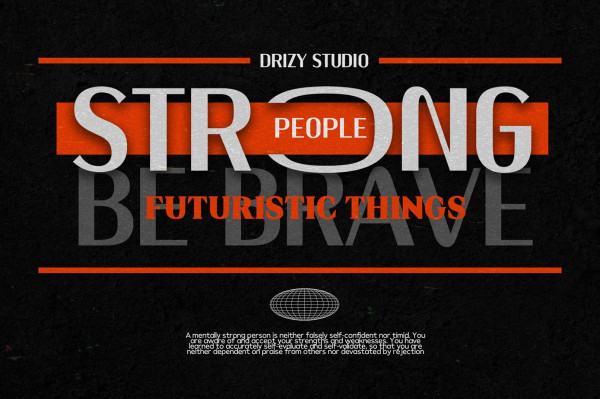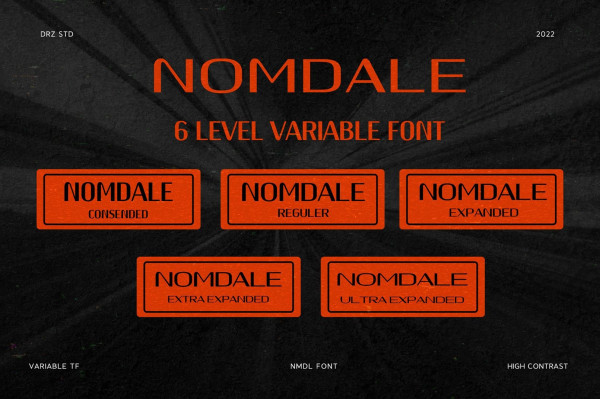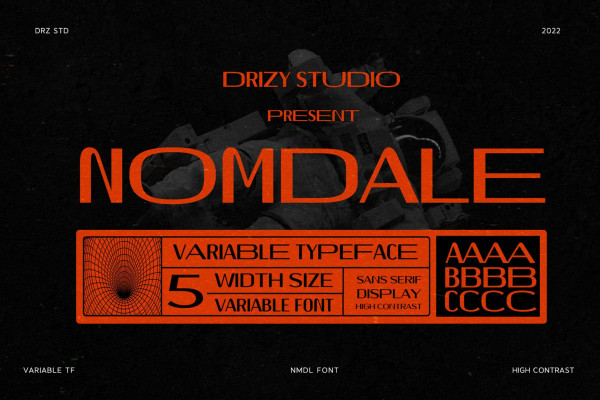
Nomdale Font
Nomdale Font is a sans serif variable font from Drizy Studio. Offering all the basic styles you will need for a futuristic project theme.